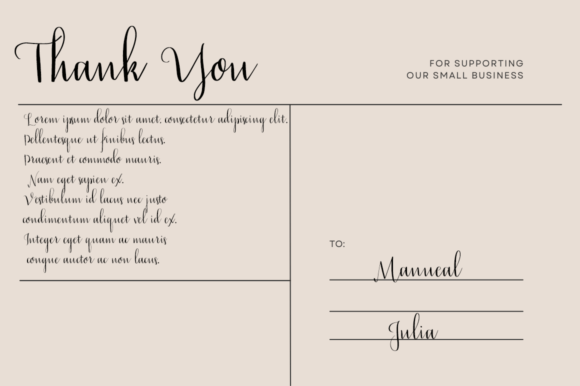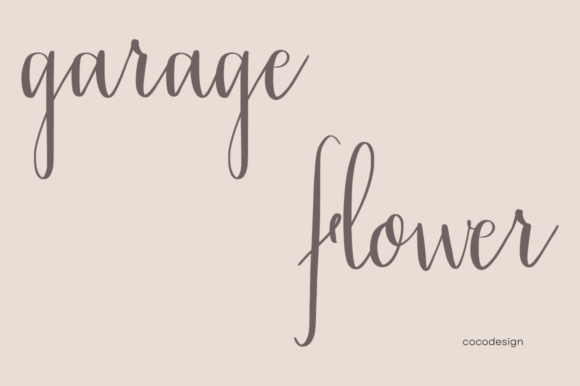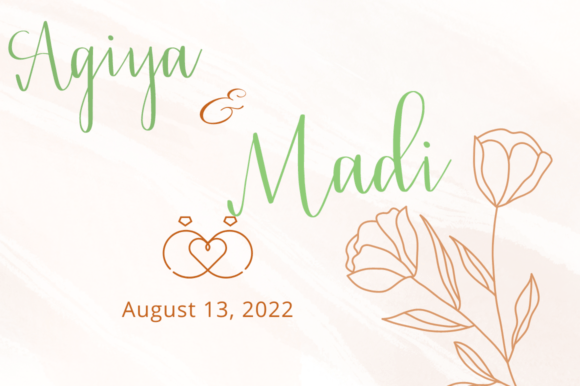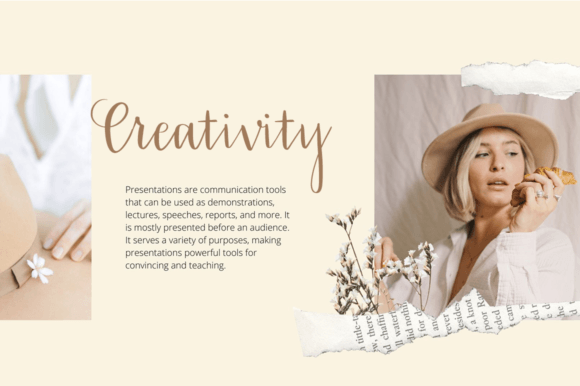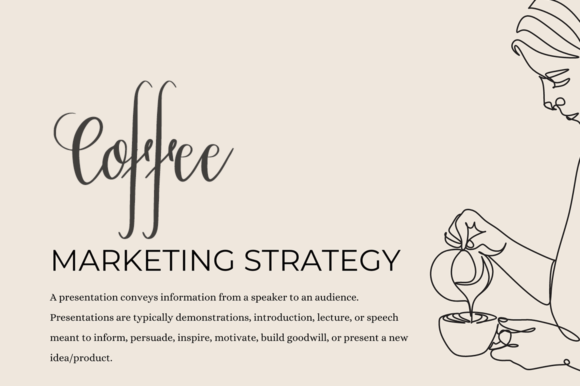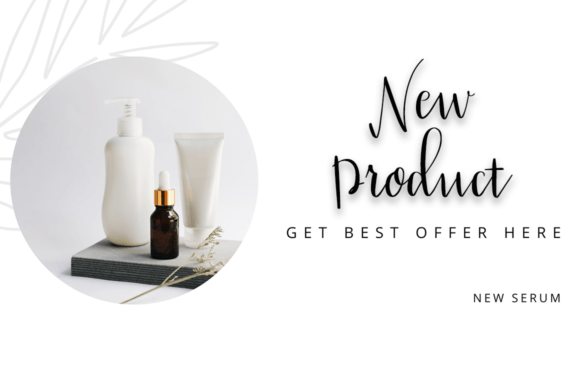
Introduction to Mangely Font
Mangely is a natural handwritten font with casual characters and beautiful swashes.
It can be used for various purposes, such as logos, product packaging, wedding invitations, branding, headlines, signage, labels, signatures, book covers, posters, quotes, and more .
Key Features of Mangely Font
Why Choose Mangely Font?
Mangely Font offers exceptional quality and versatility, making it a valuable addition to your design toolkit. Whether you’re creating for personal projects or commercial use, Mangely Font delivers professional results.